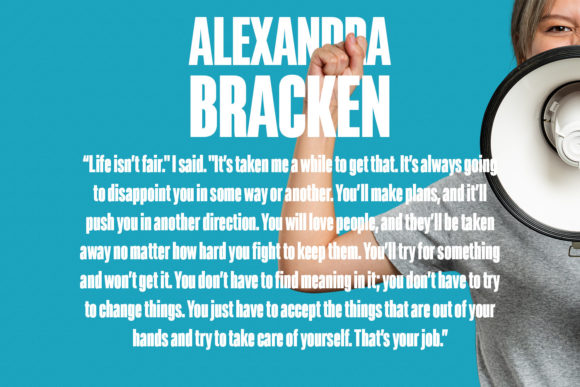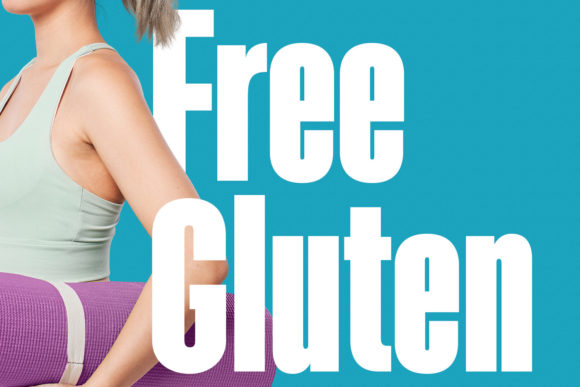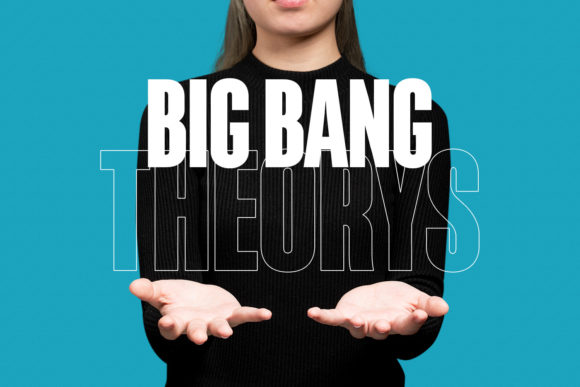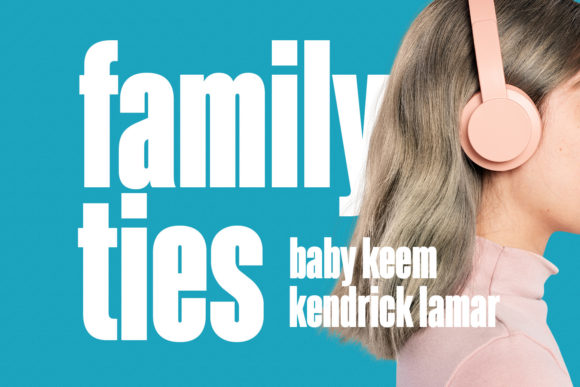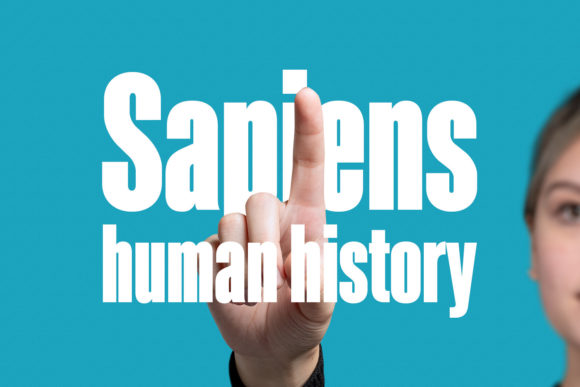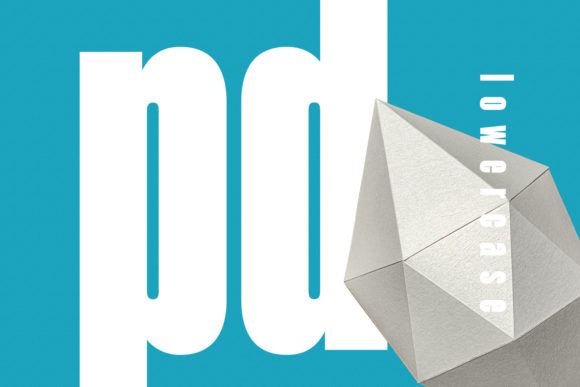
Introducing Garmint: The Modern Sans Serif Font for Creative Projects
In the world of typography, fonts play a crucial role in conveying the tone and personality of a brand, product, or creative project. With the vast array of fonts available, it can be challenging to find the perfect one that stands out from the crowd. However, if you’re looking for a modern sans serif font that exudes boldness and fun, look no further than Garmint.
What is Garmint?
Garmint is a contemporary sans serif font designed with bold condensed strokes and fun characters. Its sleek and modern aesthetic makes it an excellent choice for a wide range of creative projects, from logo designs to social media graphics, movie titles, book titles, and even long-form text.
Key Features of Garmint
- Bold Condensed Strokes: Garmint’s bold strokes give it a striking appearance, making it perfect for headlines, titles, and emphasis.
- Fun Characters: The font includes a range of fun and playful characters that can add a touch of personality to your designs.
- Modern Aesthetic: Garmint’s sans serif design gives it a clean and modern look that’s perfect for contemporary brands and projects.
- Versatility: Garmint is suitable for a wide range of projects, from short text to long-form content, making it a versatile addition to your font library.
Use Cases for Garmint
Garmint’s versatility makes it an excellent choice for various creative projects, including:
- Logo Designs: Garmint’s bold and modern aesthetic makes it perfect for creating striking logos that grab attention.
- Social Media Graphics: The font’s fun and playful characters make it ideal for social media graphics, such as Instagram posts, Facebook headers, and Twitter graphics.
- Movie Titles: Garmint’s bold and condensed strokes make it an excellent choice for movie titles, adding a touch of drama and excitement.
- Book Titles: The font’s modern aesthetic and readability make it perfect for book titles, both fiction and non-fiction.
- Long-Form Text: Garmint’s clean and legible design makes it suitable for long-form text, such as articles, blog posts, and website content.
Tips for Using Garmint Effectively
To get the most out of Garmint, here are some tips for using the font effectively:
- Experiment with Font Sizes: Garmint’s bold strokes make it perfect for headlines, but don’t be afraid to experiment with different font sizes to create visual interest.
- Mix and Match with Other Fonts: Garmint pairs well with other fonts, so try combining it with serif or script fonts to create a unique look.
- Use Fun Characters: Garmint’s fun characters can add a touch of personality to your designs, so don’t be afraid to use them to add visual interest.
In conclusion, Garmint is a modern sans serif font that’s perfect for creative projects that require a bold and fun aesthetic. With its condensed strokes, fun characters, and modern design, Garmint is an excellent choice for logo designs, social media graphics, movie titles, book titles, and long-form text. By following the tips outlined above, you can make stunning work with Garmint and take your designs to the next level.